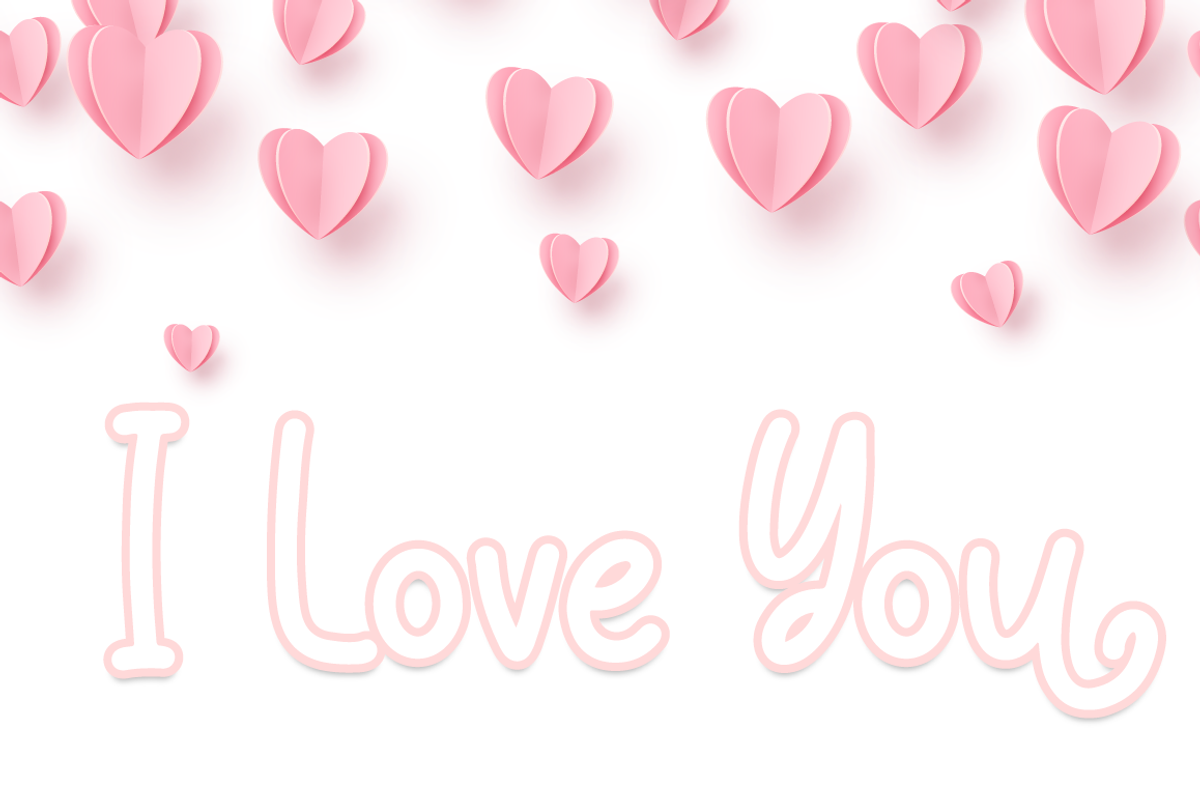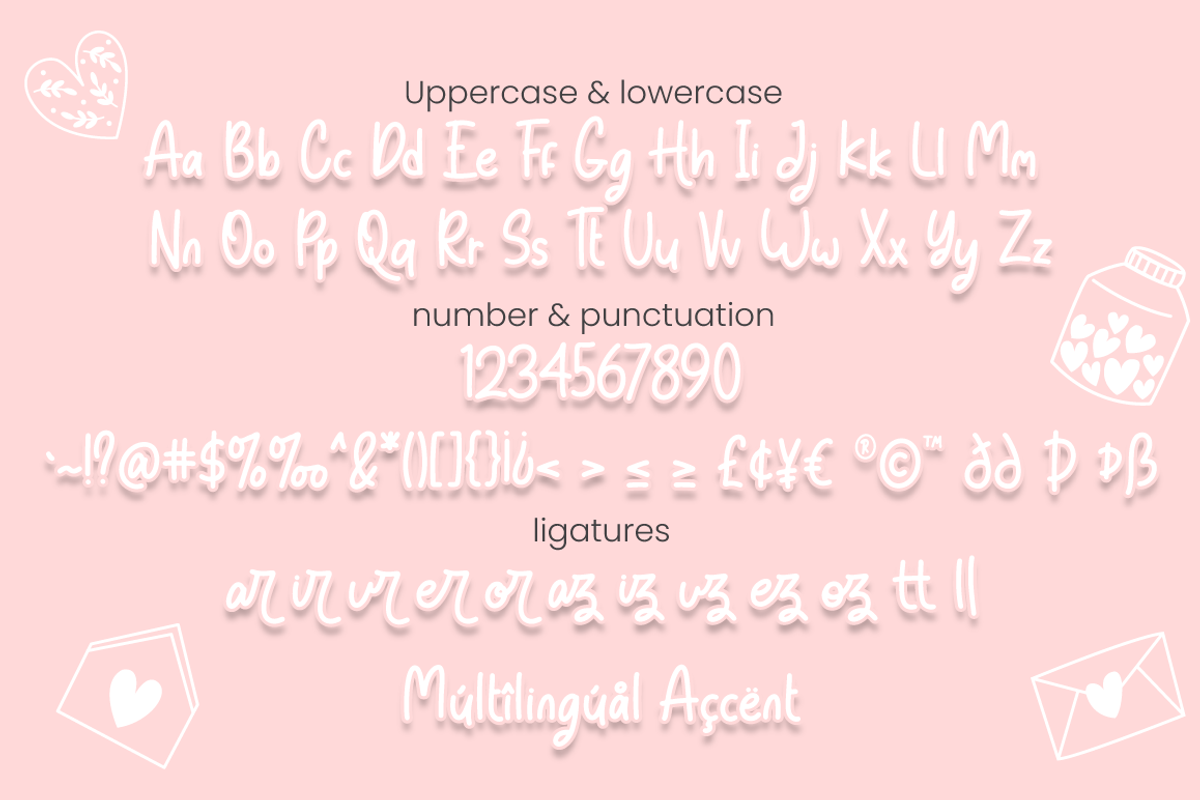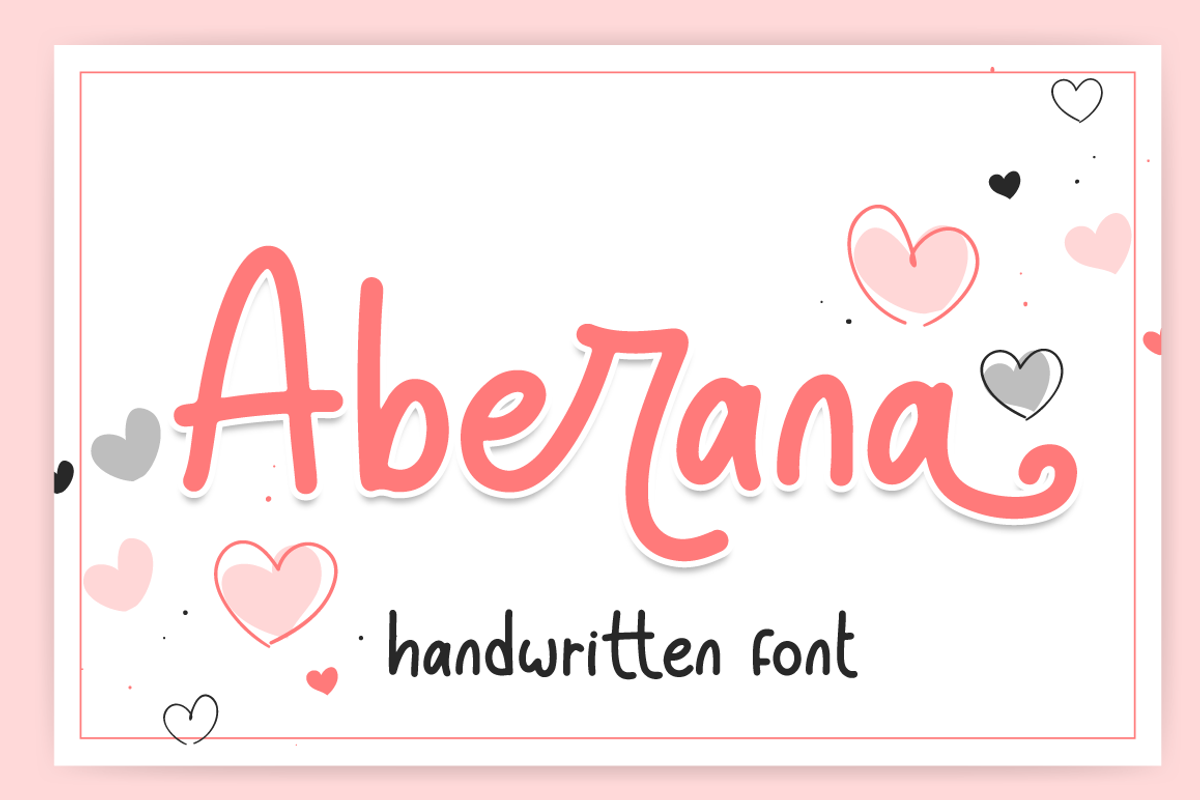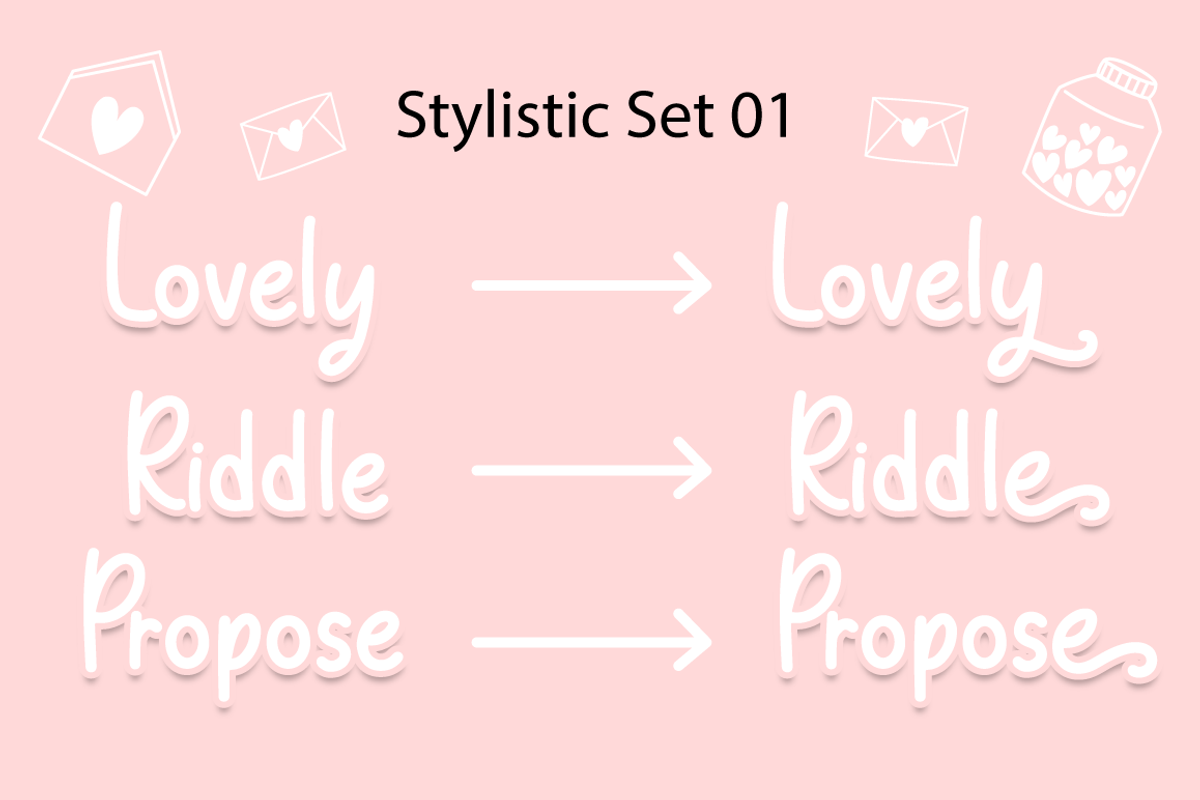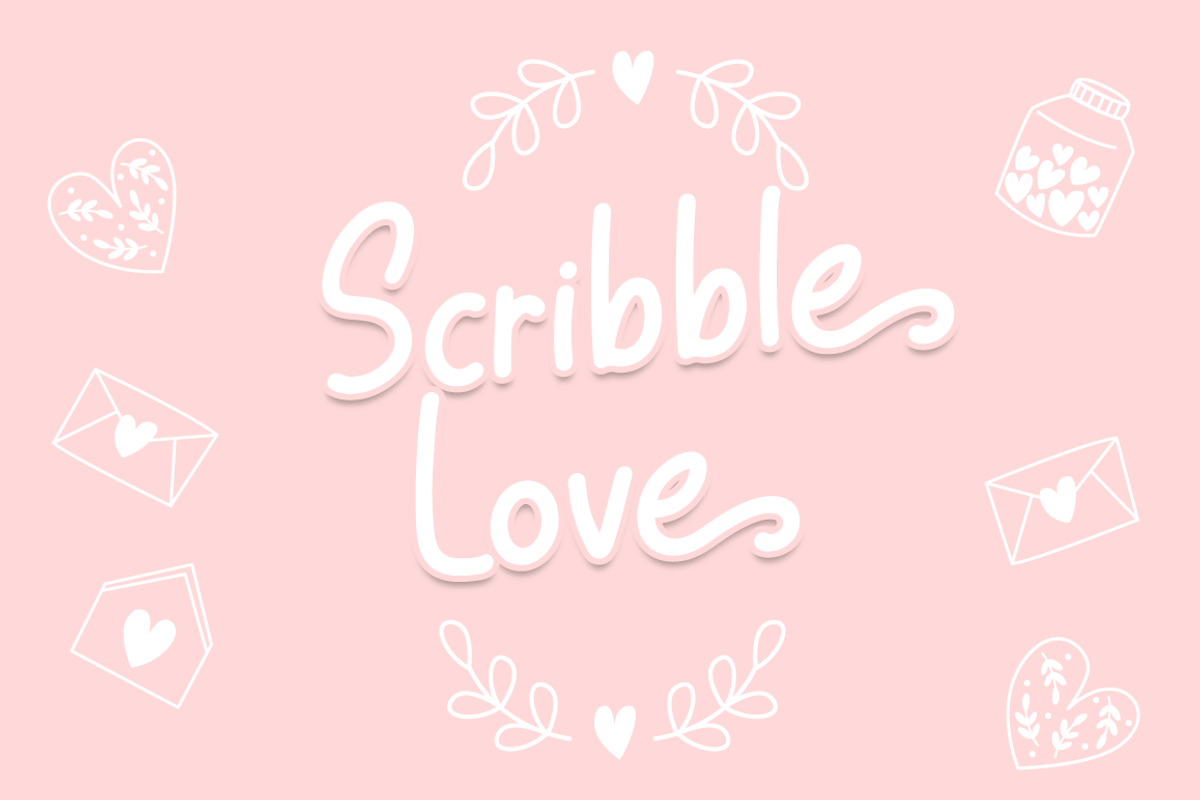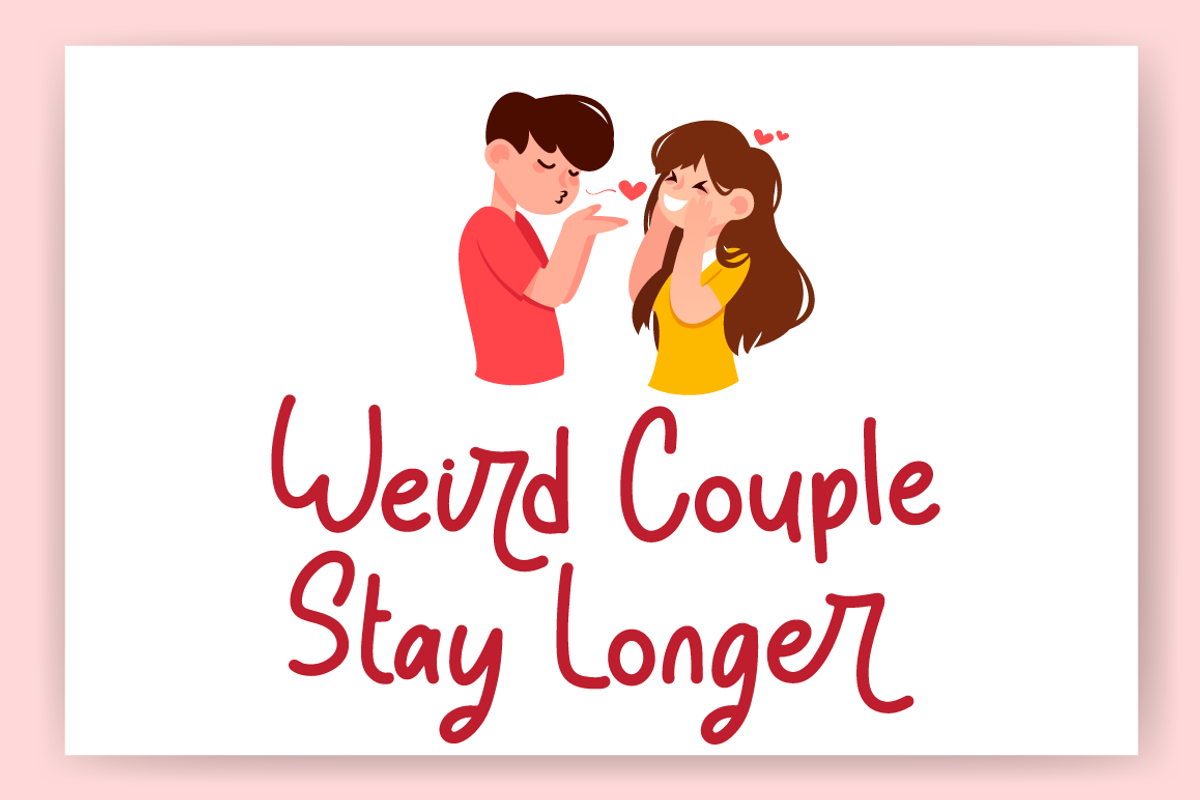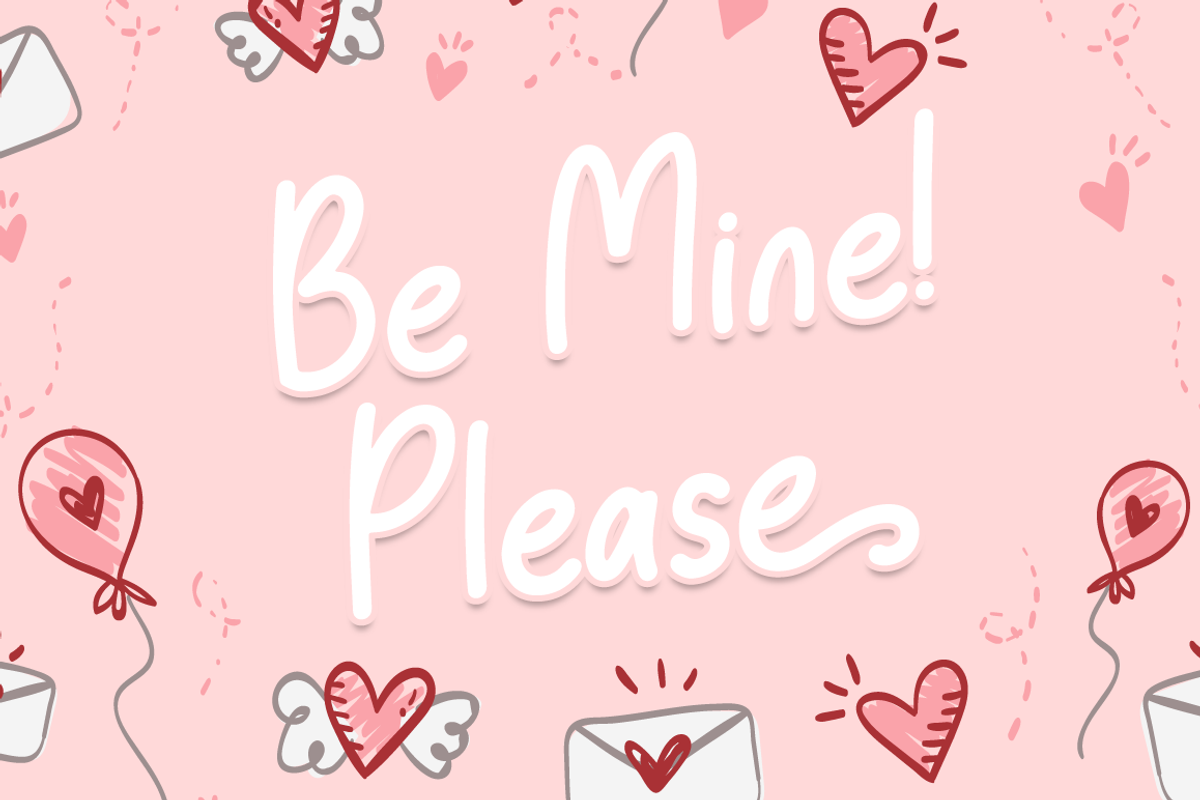
Aberana - Lovely Font
Aberana is lovely display font, including stylistic alternates that perfect for any combination for your design. Aberana perfectly macth for desgign with valentine theme, any product like book cover, t-shirt, branding, promotion, social media post, quotes, wedding, photography and more.
- Support Opentype features
- Aberana Stylistic set 01